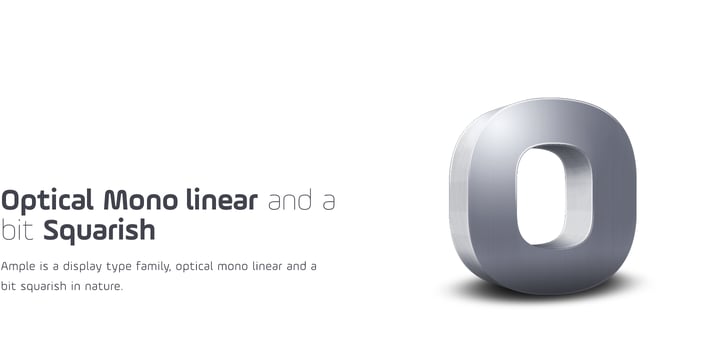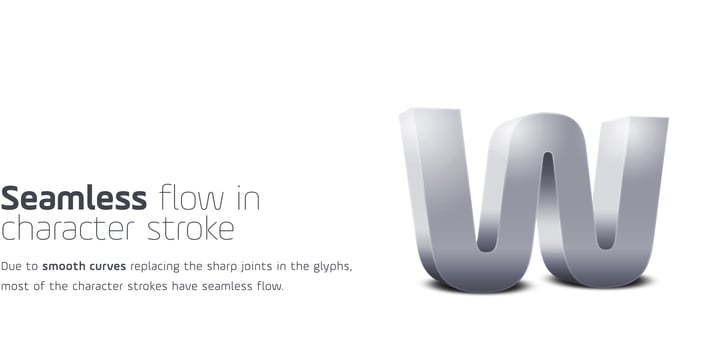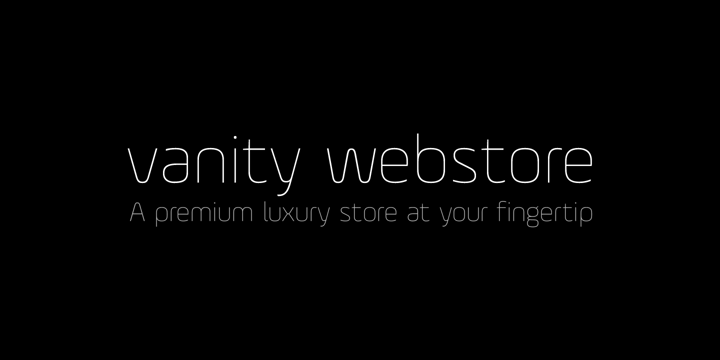
Ample
Ample by Soneri Type
Ample Font Family was designed by Aakash Soneri and published by Soneri Type. Ample contains 6 styles and family package options. More about this family
About Ample Font Family
Ample is a display type family, optical mono linear and a bit squarish in nature. It has a smooth curve instead of sharp angles formed by the junction of two strokes, which is a prominent feature of its design. It is designed to be a little eye-catching yet legible. It has clear and distinguishable letterforms, which helps to elaborate and emphasise the message. It is graphically strong and commands viewer’s attention. The overall appearance of type is suitable in setting it as heading, title, headline, etc. The type family consists of six weights viz. Thin, ExLight, Light, Regular, Medium and Bold. Considering the nature of this type family, italics have been excluded. Ample is designed by Aakash Soneri in a period between 2013 and 2014.
About Soneri Type
Soneritype is an independent digital type foundry in Ahmedabad, India, established by Aakash Soneri. He started working on type design in early 2007 and founded Soneritype by debuting on MyFonts.com with Sone font family on 21st April 2009. He has experience of around two decades in the design industry. After completing his PG Diploma in Multimedia he worked as a design lead with a few IT companies where he worked on various projects which include designing UI (User Interface) for Web Sites, Web Applications and Software, Logo/Symbol, Icon, Stationery, Typeface, Packaging, and other Marketing/Office Materials for the company and clients. Leading the design team and working with other teams like the developer, SEO, marketing, etc. enriched his knowledge and experience. During this period he met Ret. Prof. of NID Late Shri Vitthal Varia, which later became his teacher, humble mentor, and a very good friend. As he studied and worked on various professional projects and exhibitions under his guidance and with several other senior designers visiting the VariaDDesign institute as visiting faculty, expanded his vision and capabilities widely which reflects in his design work.The retail typefaces we offer are creatively authentic work of craftsmanship, some of them are in use by top global brands and creative agencies.